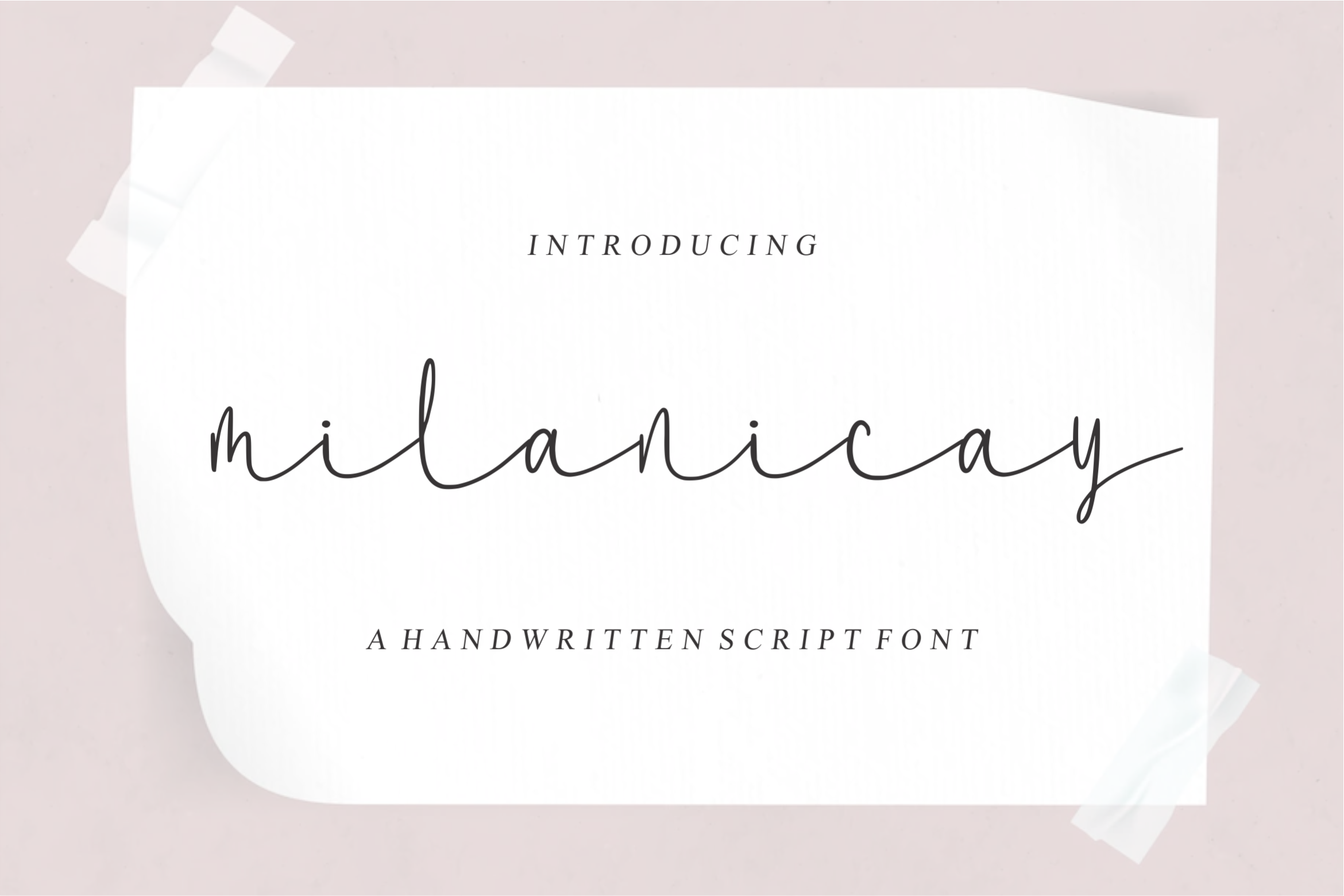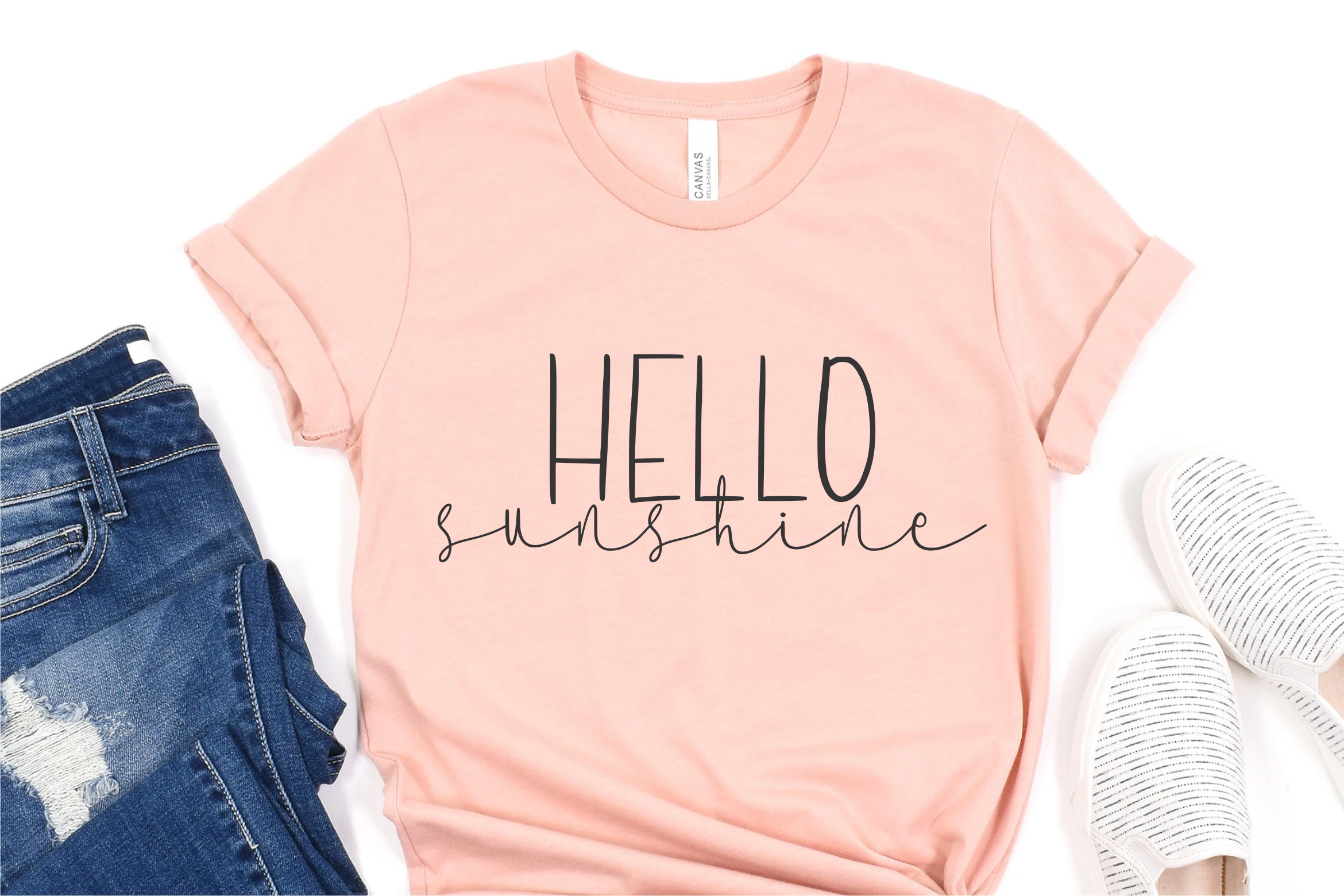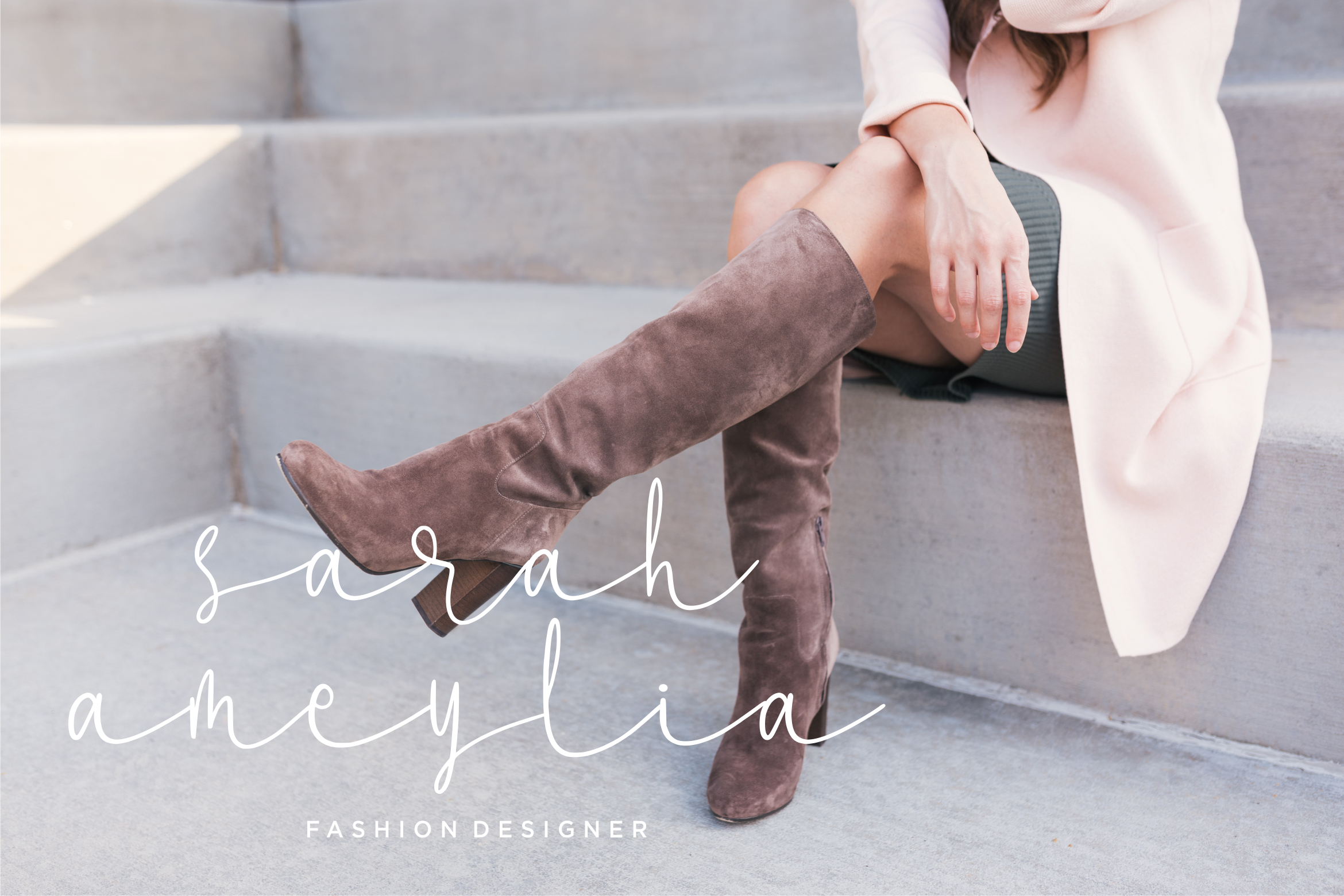
Milanicay Script Font
This is a superb handwritten font that will make your work stand out through its elegant and curvy lines. It is perfect for product packaging, branding project, magazine covers, social media, wedding, or just used to express words above the background.